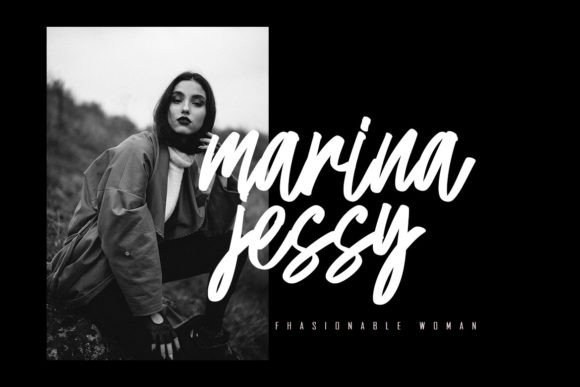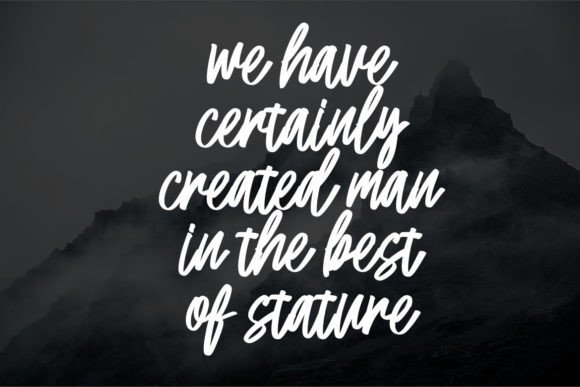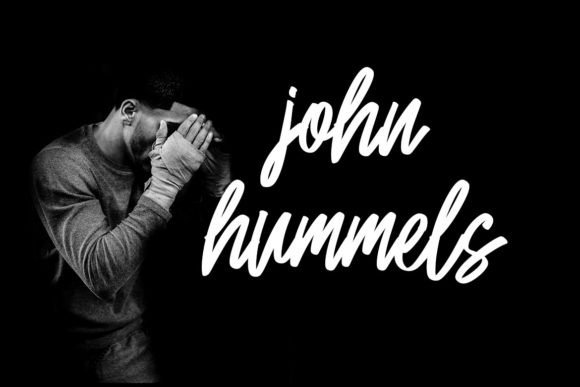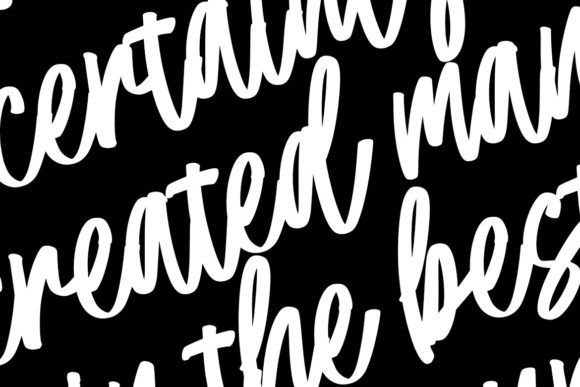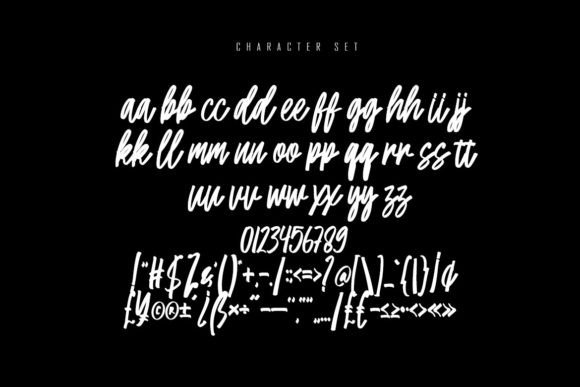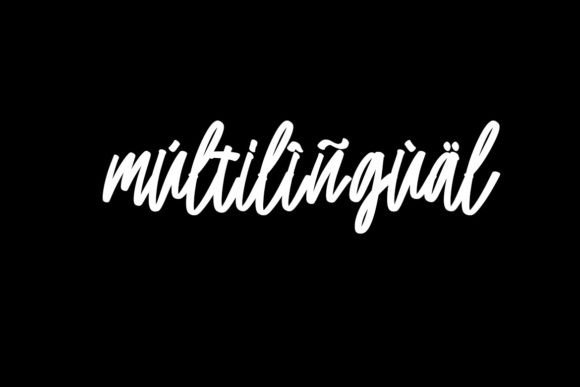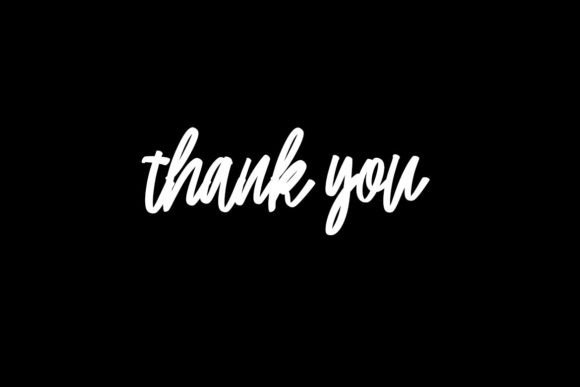
Miralas Font
About Miralas Font
Introducing “Miralas,” a gorgeous and bold handwritten font meticulously crafted to infuse your headlines and logotype projects with a stylish touch. This font is designed to be strong, confident, and dynamic, adding a wealth of nostalgic character to your designs. Allow Miralas to become the centerpiece of your creative endeavors, bringing a sense of bold elegance to your typographic compositions.
Miralas, with its bold and gorgeous handwritten style, stands out as a font that commands attention. The strong and confident letterforms contribute to a dynamic visual presence, making it particularly well-suited for headlines and logotypes where impact is key.
The font’s boldness makes it versatile for various design applications. Whether you’re creating headlines for articles, crafting a unique logo, or making a statement in your typographic projects, Miralas offers a stylish touch that resonates with strength and character.
Embrace Miralas in your design ventures and experience the powerful impact it brings to your creative work. The bold and gorgeous handwritten style of this font allows it to make a strong visual statement, making it suitable for projects that require both style and substance.
Miralas is not just a font; it’s a design tool that injects a sense of bold elegance into your typographic compositions. Its confident and dynamic nature adds a nostalgic character, making it an excellent choice for those seeking to evoke a timeless and impactful feel in their designs. Let Miralas be the font that elevates your headlines and logotypes, making them not just readable but also visually striking and memorable.